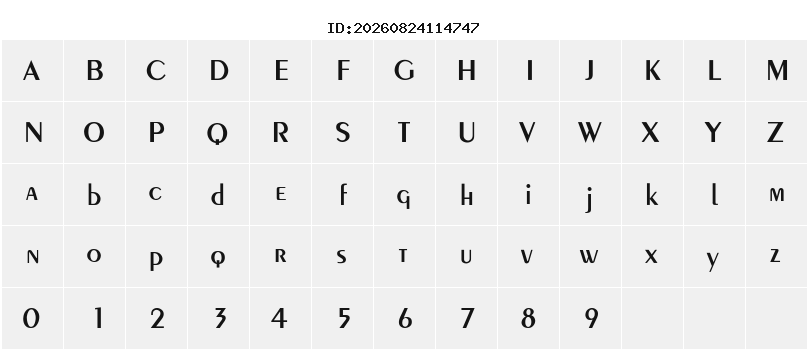
Sailor Preview
• Font Name: Sailor
• Full Font Name: Sailor
• PostScript Name: Sailor
About Sailor.ttf
Sailor.ttf is a modern, elegant sans-serif font designed for ultimate readability and visual harmony. Perfect for branding, headlines, web design, and print materials.